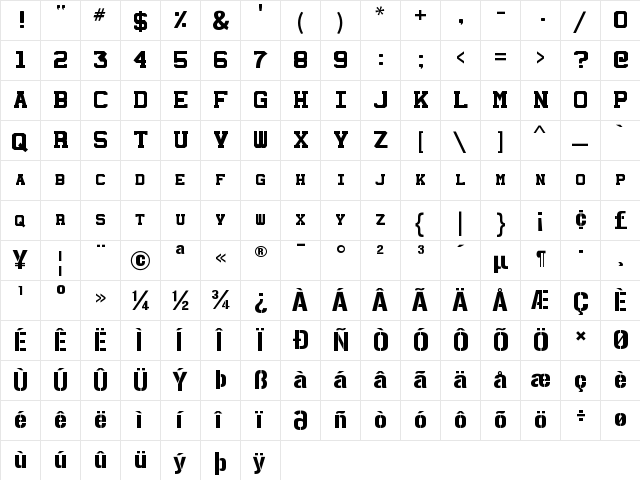
Station 232 Regular
Design Context for Station 232 Typeface
Station 232 is a composed and adaptable typeface that performs quietly and consistently across a wide range of design contexts.